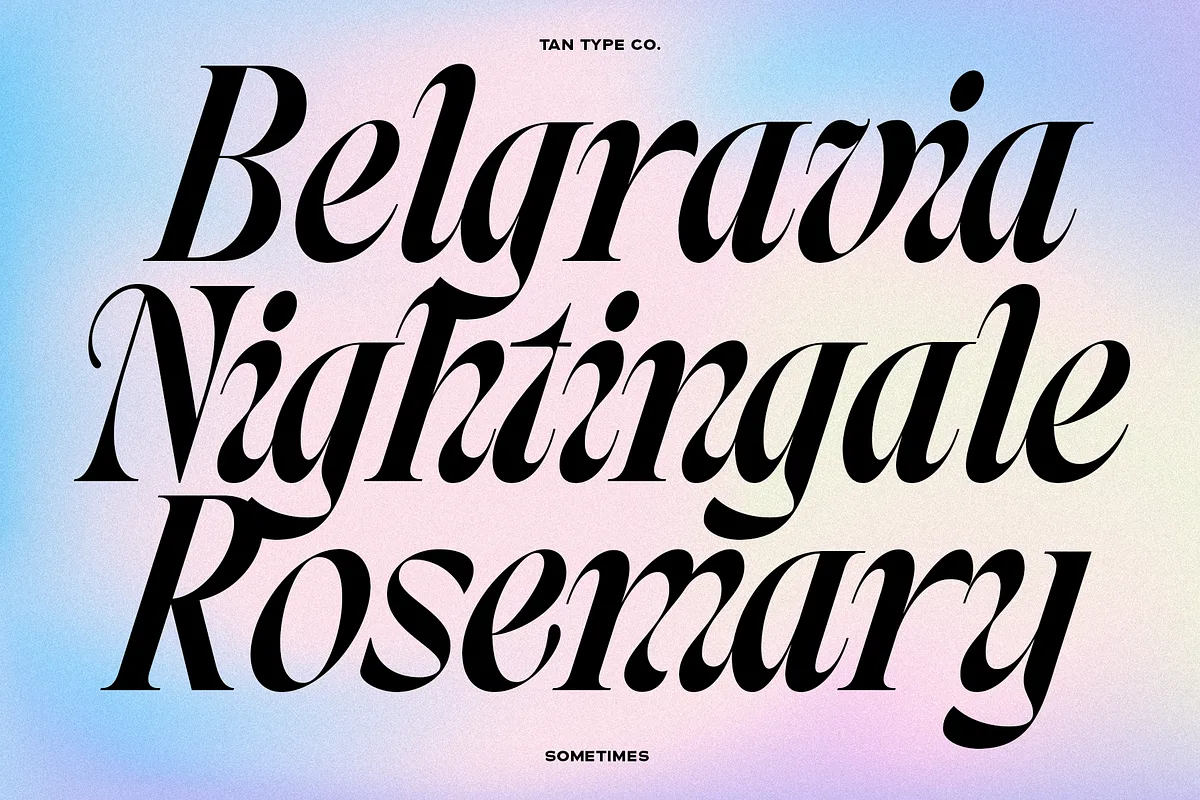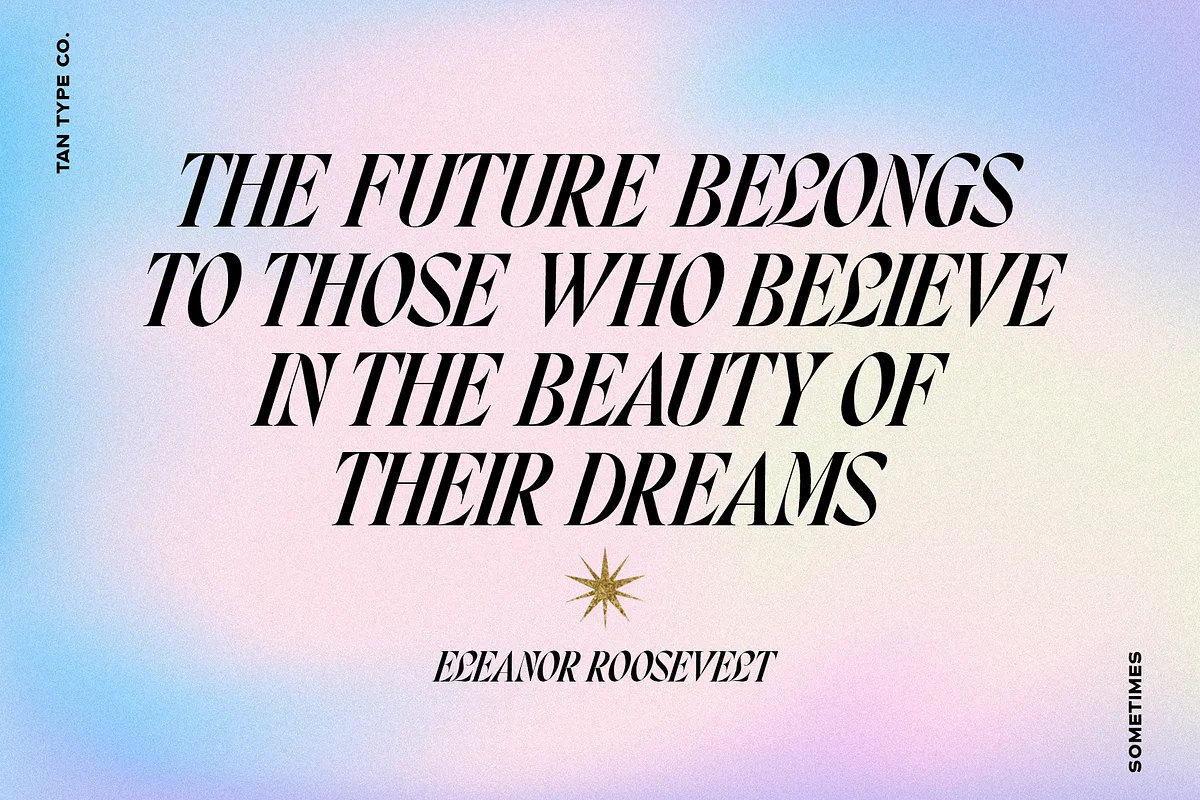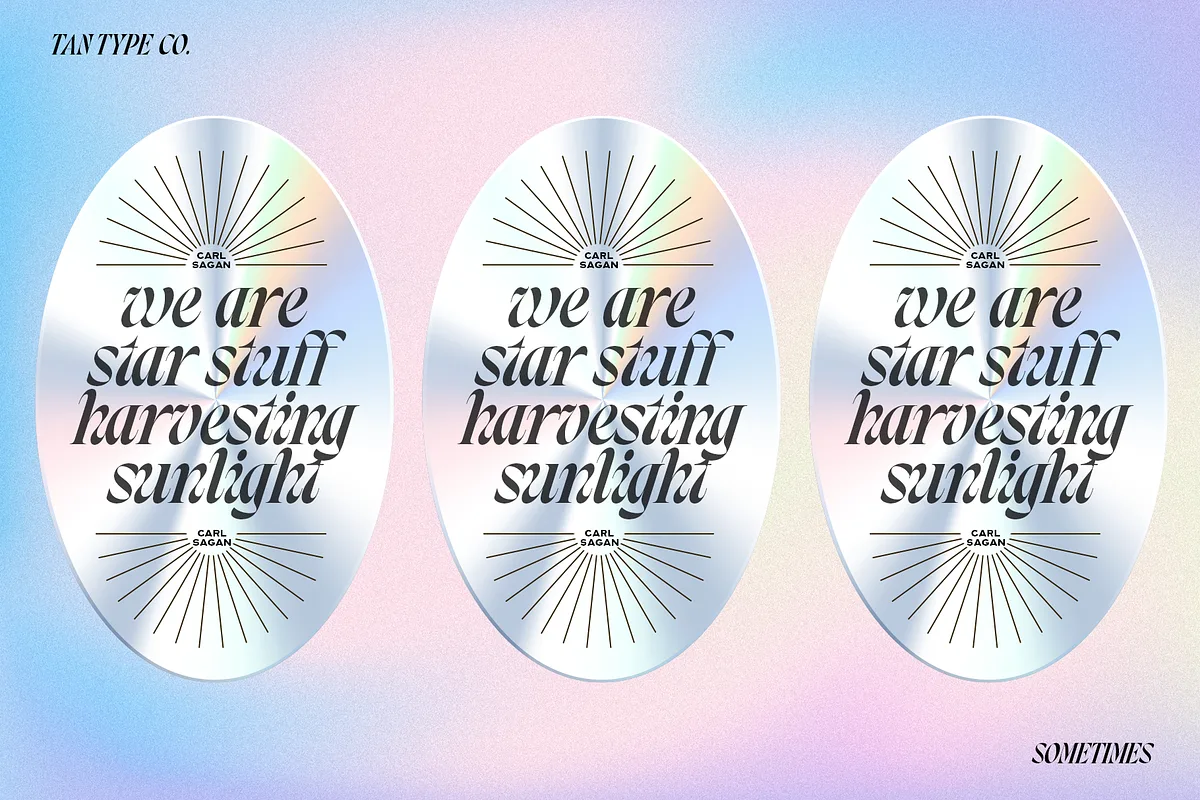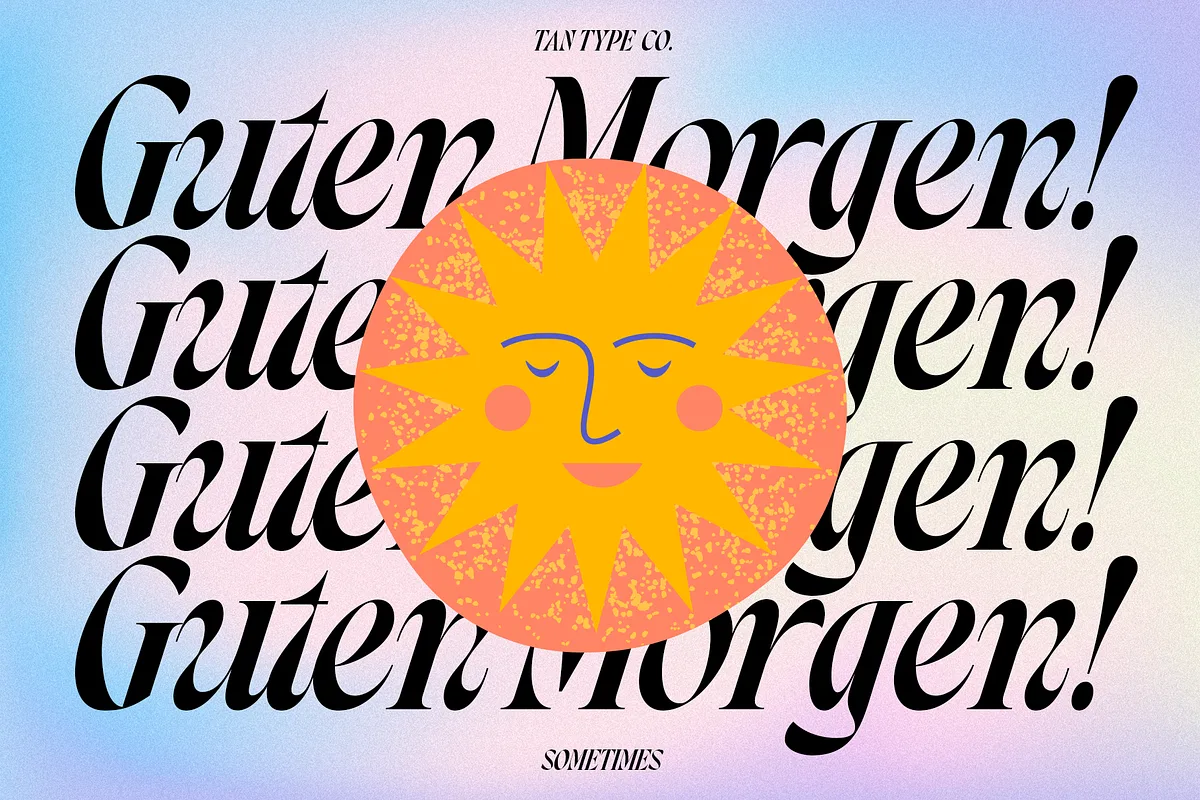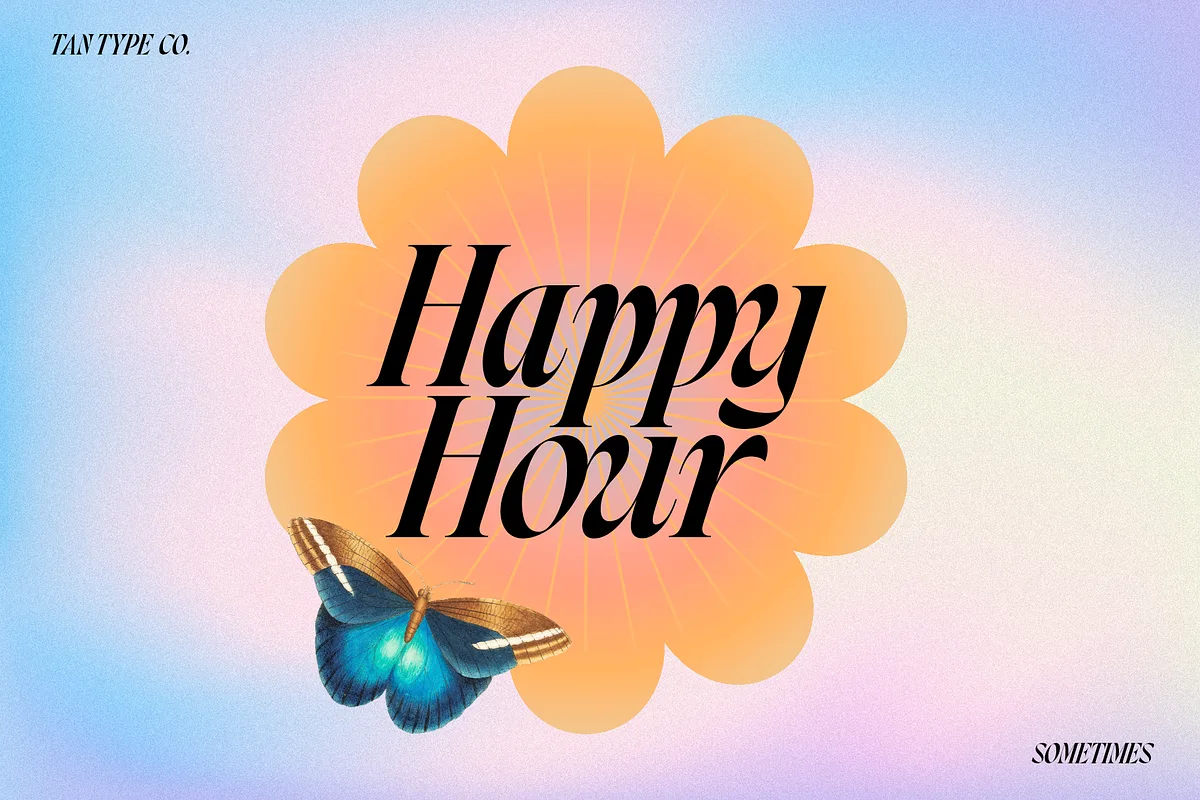
Tan Sometimes is a bold italic display font. Groovy and gives a retro vibe. Perfect for any of your design needs. It is great for your next creative project such as logos, printed quotes, invitations, cards, product packaging, headers, logotype, letterhead, poster, label, and etc.